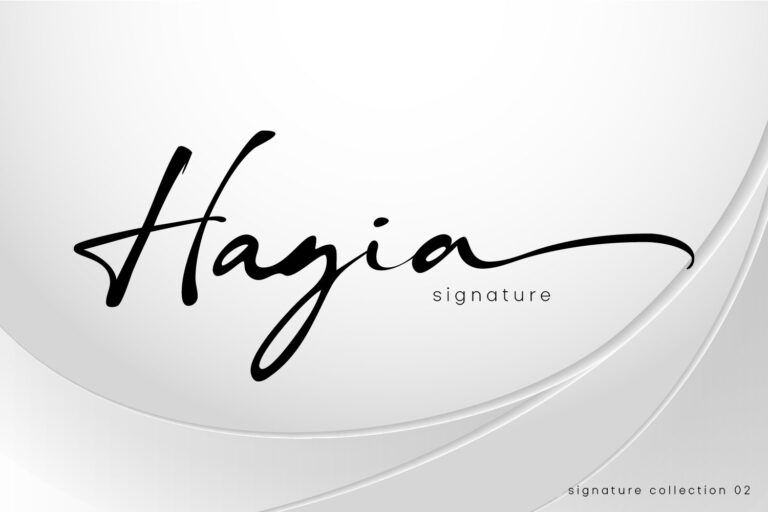
Hagia Signature
Hagia Signature. Is a unique and natural script font. Its general appearance is in the form of light brush strokes and free flowing. Like the dancer’s hand movements when we make upstroke and downstroke. Thick-thin in irregular but blended in harmony.
It is a style that liberates expression, full of soul and character.
We created this font for branding and only for branding. it’s a great font applied to modern logos. Equipped with 99 ligatures to make a natural impression